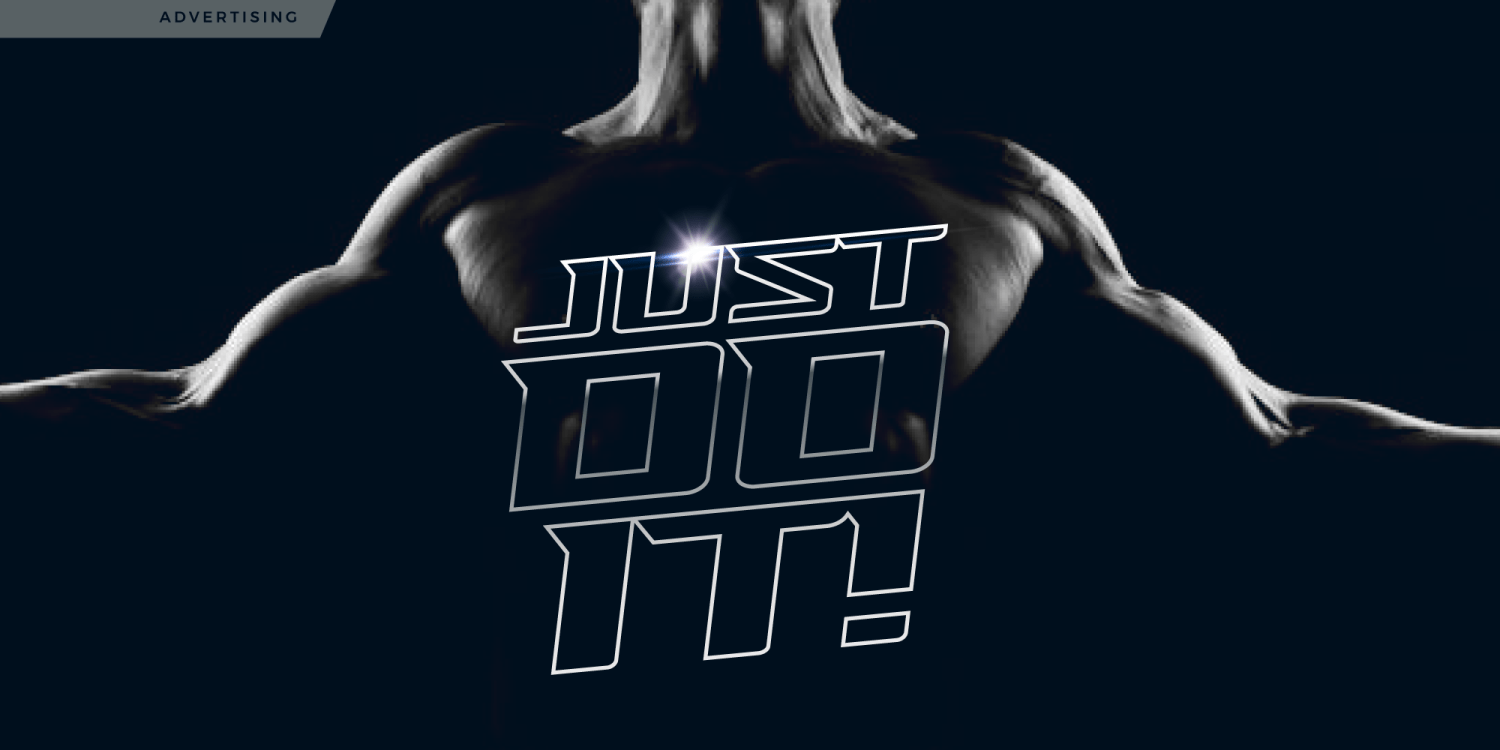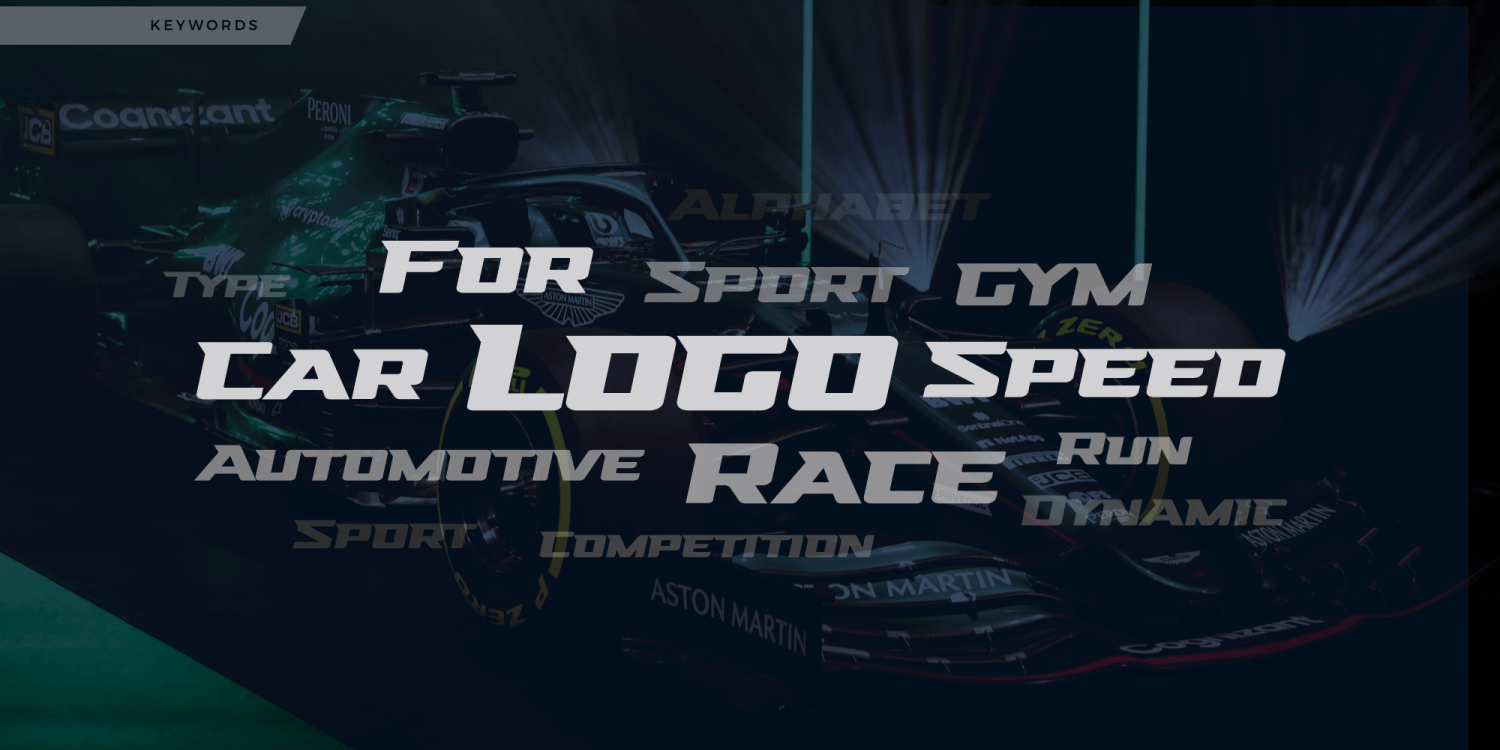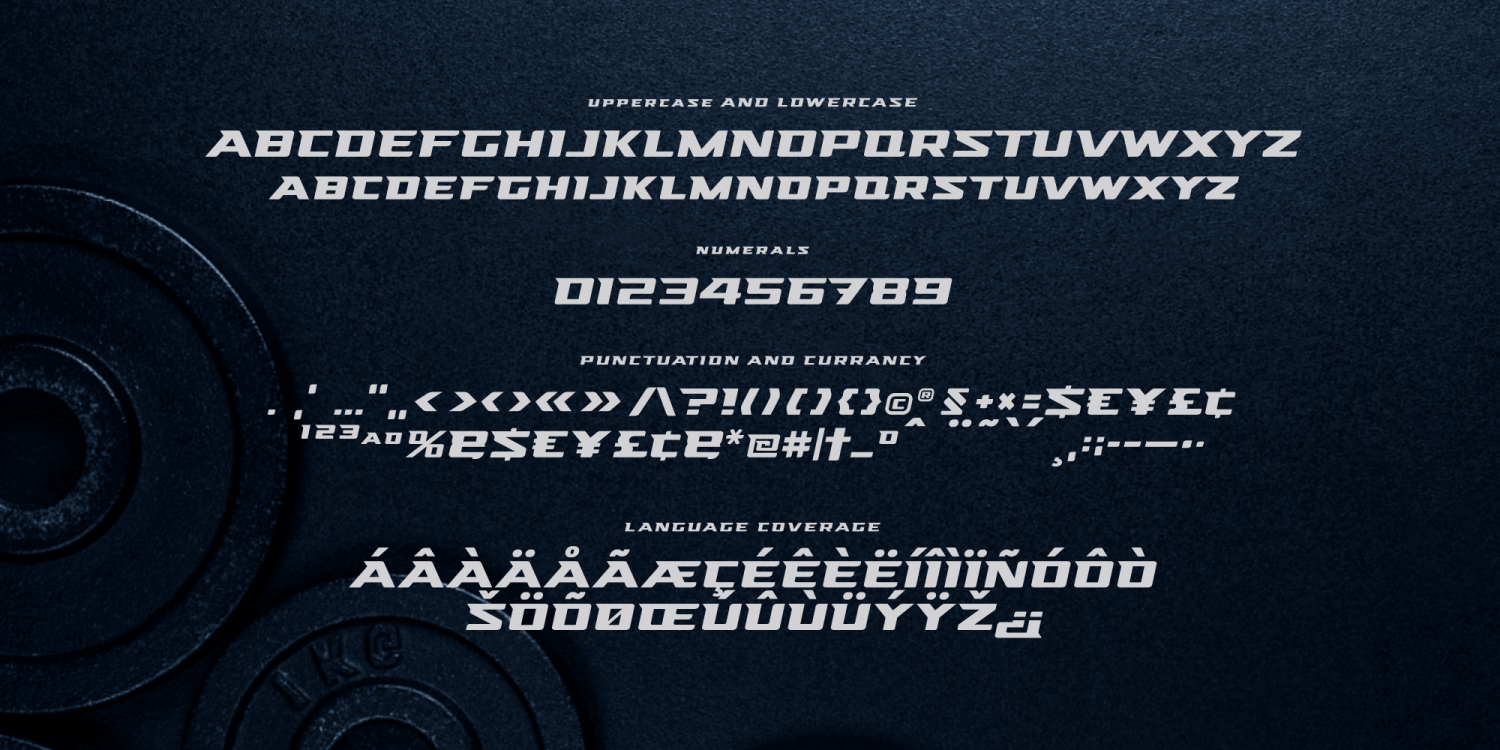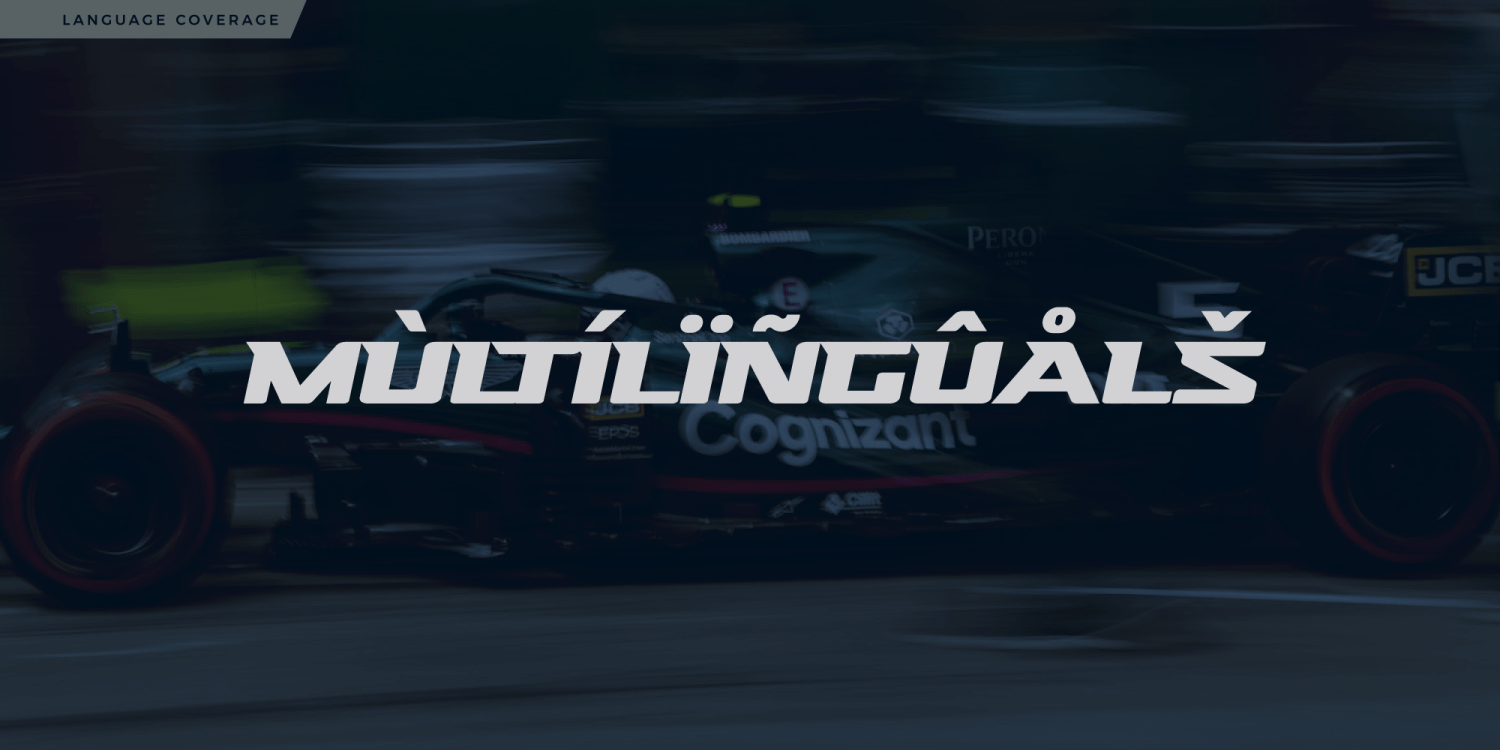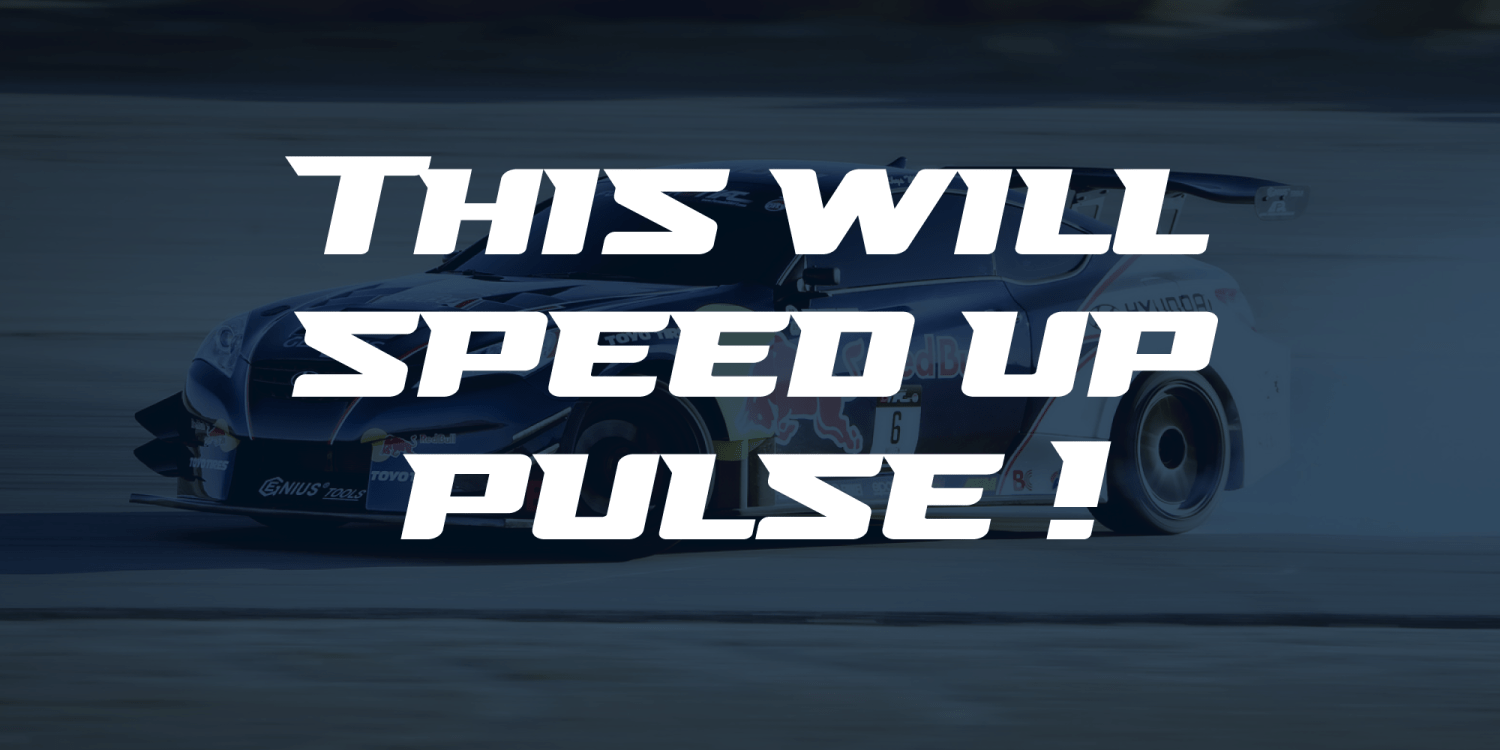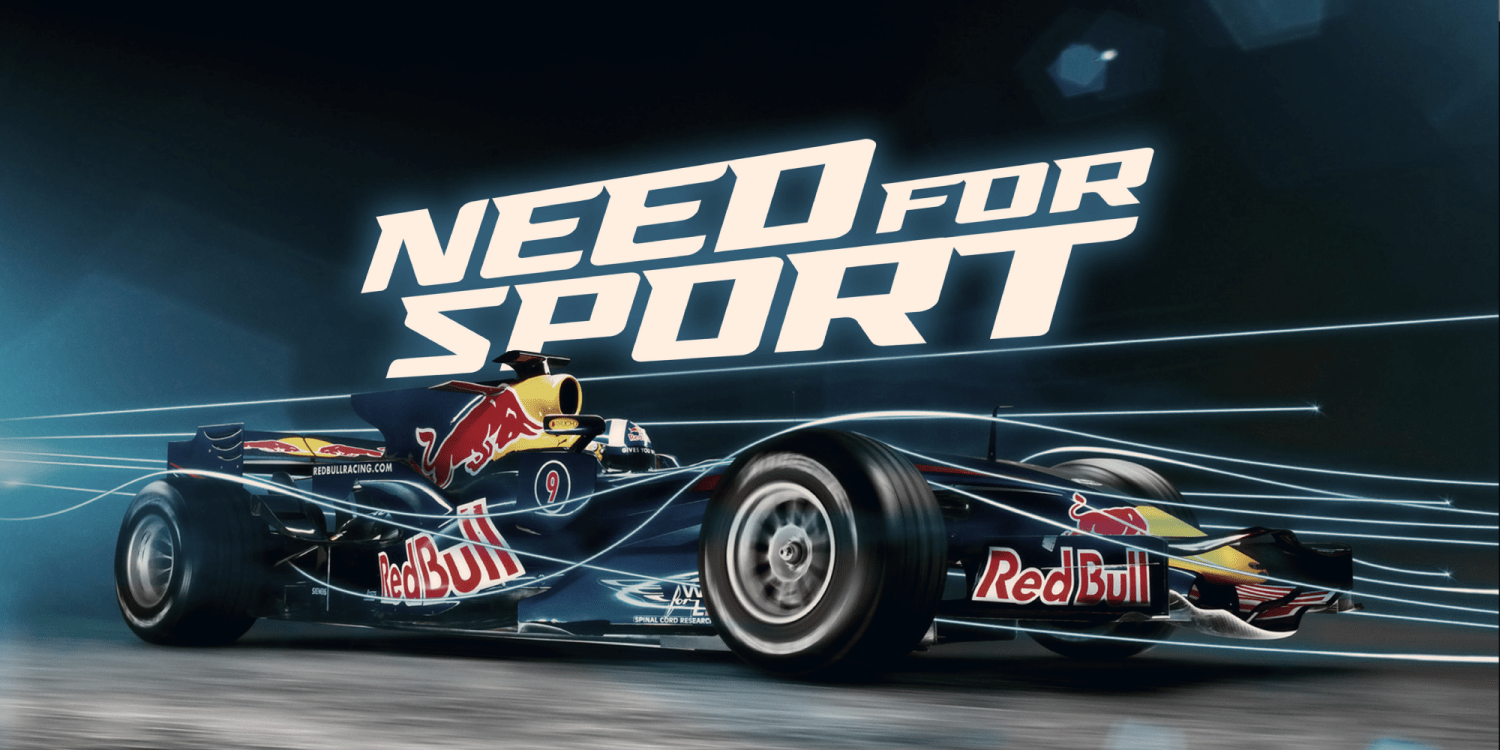
Steel Race Regular
Steel is a bold italic display font designed for motorsport, fitness, esports and powerful athletic branding. Its wide proportions, forward slant, sharp notches and angular geometric construction create a strong sense of speed, strength and competition.
Steel is especially effective for racing logos, team identities, gym branding, sportswear, vehicle graphics, tournament titles, posters, packaging, advertising and energetic editorial headlines. Its solid silhouette remains highly visible in large display settings, while the distinctive cuts give wordmarks a recognizable technical character.
The font includes uppercase and lowercase letters, numerals, punctuation, currency symbols and multilingual Latin support. Steel is built for short, forceful messages that need to communicate motion, endurance and performance.